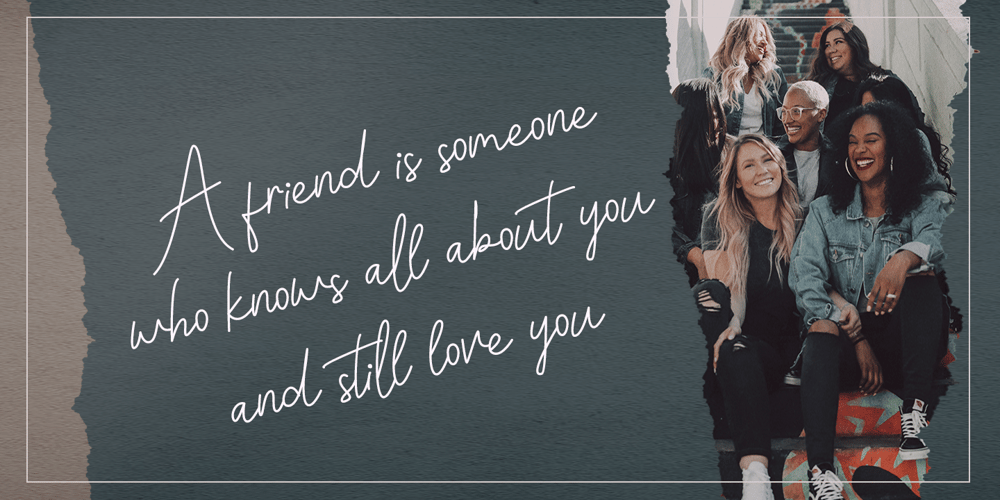
Martabat Font Family was designed by Wildan Carbon and published by Wildan Type. Martabat contains 2 styles and family package options. Martabat is an monoline script font wich natural movement. I made this font inspired by the concept of simple signature and made it into a modern yet clean style. I also added some ligatures and alternatives swashes that are very interesting when applied.This font is perfect for creating signature logos or just watermarks for your photography studio or print templates like posters, branding, quotes, or anything else. Alternative and swash characters are also available. Very recommended to use in Adobe Illustrator, Adobe Photoshop, CorelDraw.